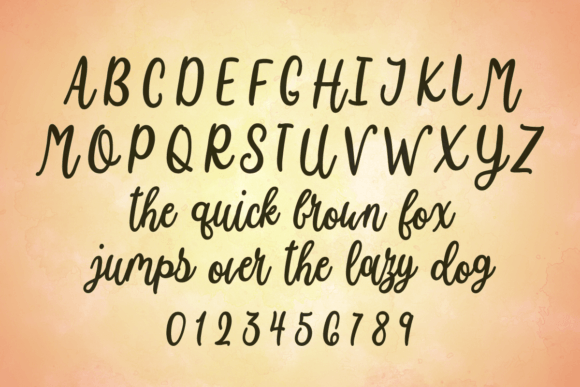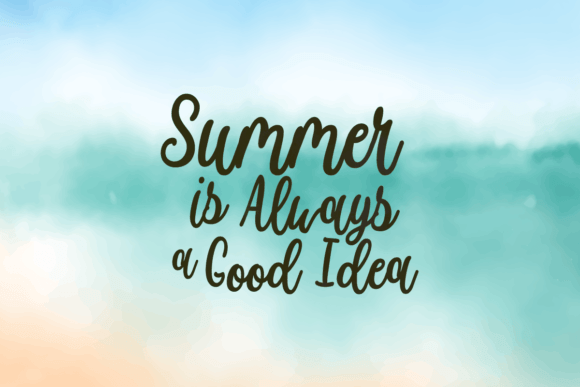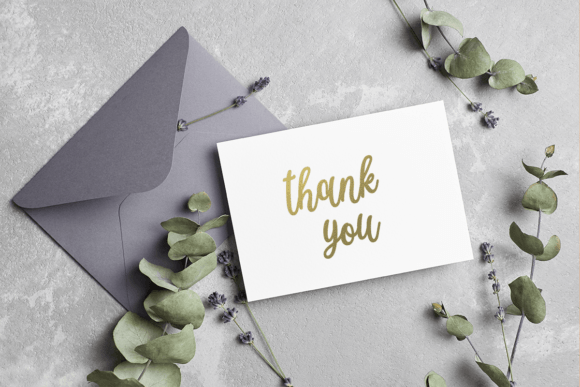
Kiwi Raspberry Font
About Kiwi Raspberry Font
**Kiwi Raspberry** is a delightful handwritten font that radiates charm and whimsy. Its playful and lively style is sure to infuse your summer projects with a sense of fun and creativity. Whether you’re working on vinyl and sublimation projects or crafting intricate designs with your favorite cutting machine, **Kiwi Raspberry** adds a touch of personality and cheerfulness to your creations.
The font’s charming appeal makes it an excellent choice for various creative applications. Its handcrafted look and feel bring a sense of authenticity, making it perfect for projects that require a personalized touch. Whether used for custom apparel, home decor, or DIY crafts, **Kiwi Raspberry** lends a playful vibe to your designs, capturing the essence of summer fun.
With its whimsical style and friendly demeanor, **Kiwi Raspberry** inspires creativity and invites a sense of joy into your projects. Its versatility allows it to seamlessly blend into a wide range of contexts, making it an invaluable asset for crafters, designers, and hobbyists alike. The font’s handwritten charm adds character to your designs, making them stand out with a touch of uniqueness.
By incorporating **Kiwi Raspberry** into your summer projects, you infuse them with a lighthearted and cheerful energy. Its playful strokes and whimsical vibe transform your creations into vibrant and inviting pieces of art. Whether you’re creating custom designs for apparel, accessories, or home decor, **Kiwi Raspberry** brings a sense of summer delight, making your projects truly special and enjoyable.